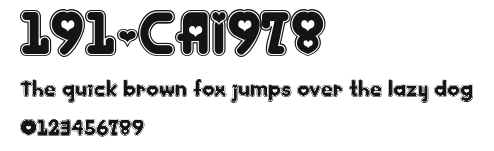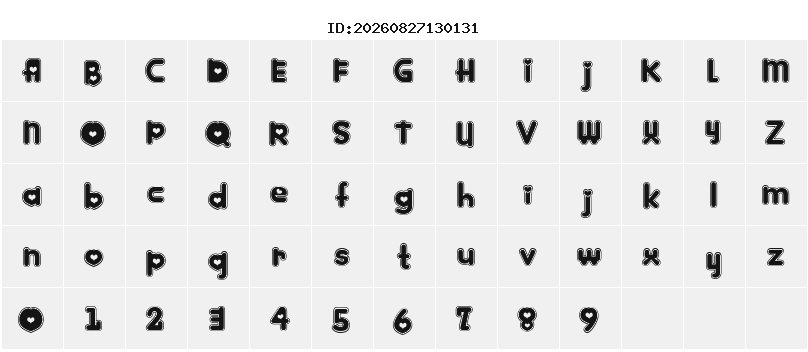
• Font Name: 191-CAI978
191-CAI978.ttf is a modern, elegant sans-serif font designed for ultimate readability and visual harmony. Perfect for branding, headlines, web design, and print materials.